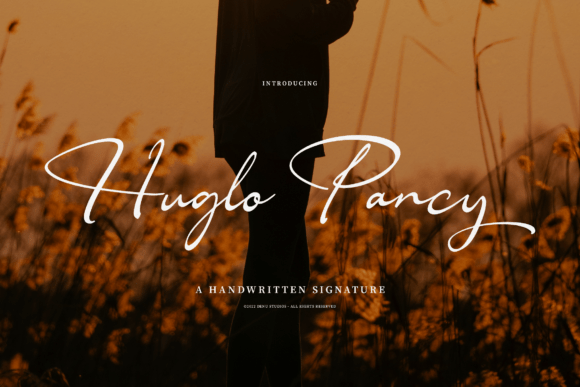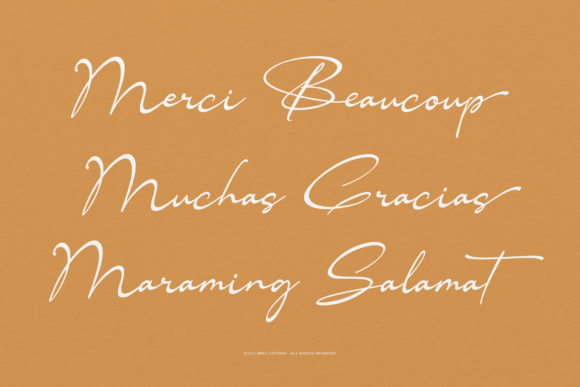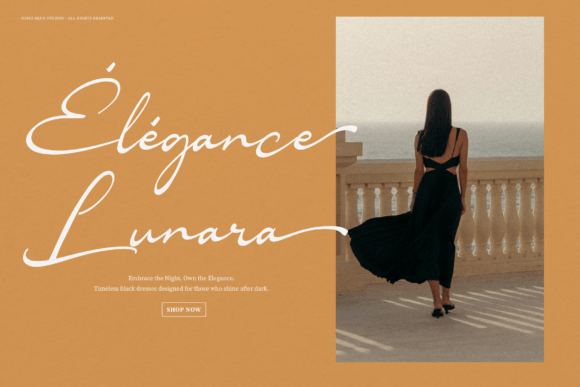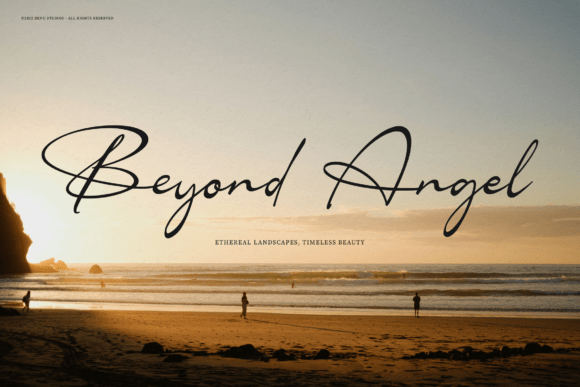
Huglo Pancy Font
About the Huglo Pancy Font
The Huglo Pancy Font offers a perfect balance of form and function for your design needs. Huglo Pancy is a handwritten signature font that blends sophistication and warmth with effortless grace. Its delicate strokes and flowing characters evoke a sense of elegance and authenticity, making it ideal for branding, personal logos, wedding invitations, and high-end packaging. This font turns every word into a signature moment.
Huglo Pancy’s elegant, yet approachable style makes it perfect for projects requiring a touch of personal warmth, such as wedding stationery, luxury branding, or boutique product packaging. It excels in short, impactful text like headlines, logotypes, and short quotes where its delicate strokes shine. Avoid using it for large blocks of body text or UI elements; its cursive nature hinders readability in extended passages.
Pairing Huglo Pancy with a clean sans-serif like Montserrat for body text creates a strong contrast and balanced visual hierarchy. For a more traditional feel, consider pairing it with a classic serif font such as Garamond or Didot. These combinations maintain legibility while highlighting Huglo Pancy’s unique character.
The overall personality of Huglo Pancy is sophisticated yet friendly, conveying both elegance and approachability. It’s ideal for brands aiming for a premium yet personable image.